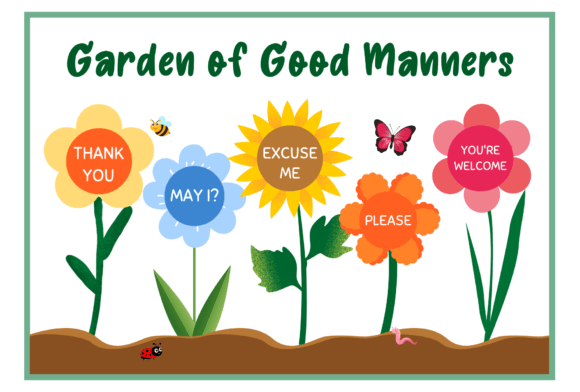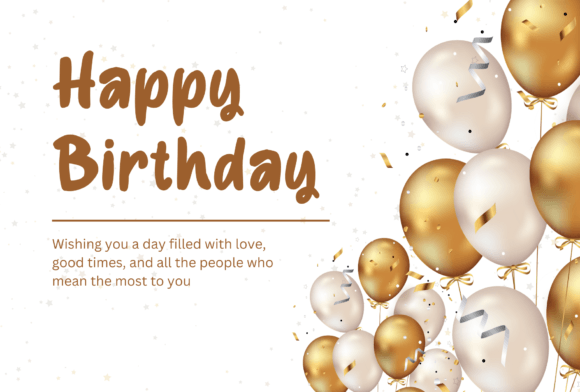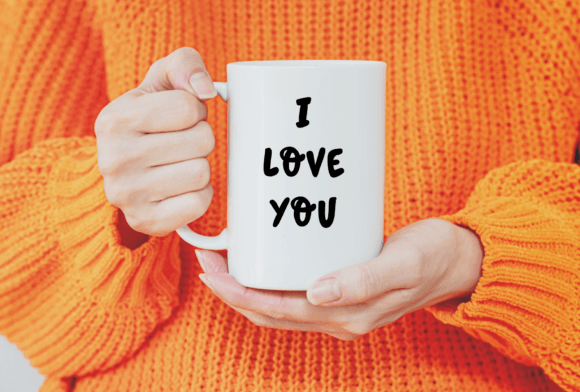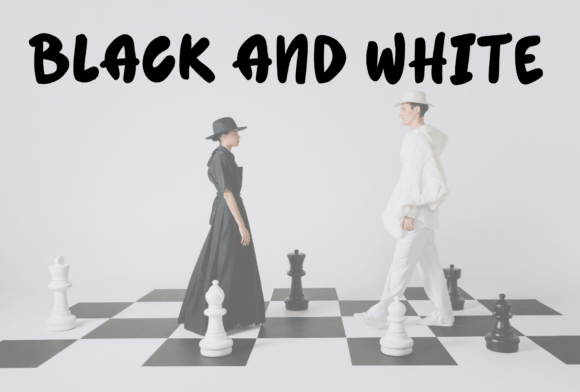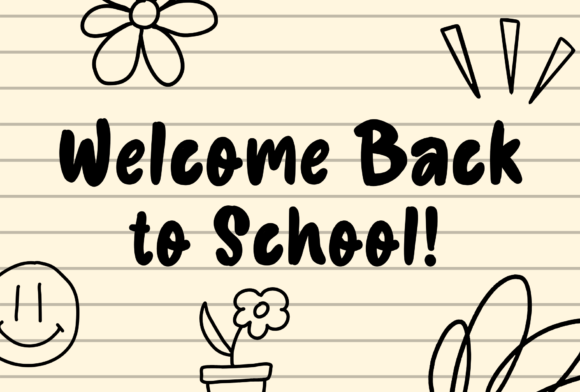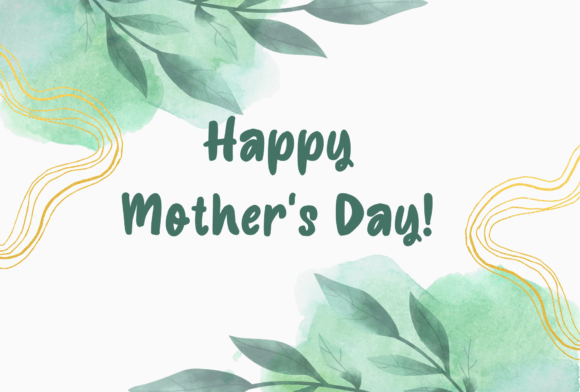
Unleashing the Whimsy: The Magic of Cartoon Font
Who hasn’t found themselves scribbling out a quick doodle in the margins of a notebook, or jotting down a playful message on a sticky note? It’s in these moments of creative abandon that we tap into our inner child, unleashing a world of imagination and whimsy. And it’s exactly this carefree spirit that Cartoon Font embodies – a charmingly quirky handwritten font designed to add a touch of personality to your creations.
Perfect for designers looking to infuse their projects with a dash of fun and sentimentality, Cartoon Font is a versatile tool that can be used to craft birthday cards, create custom planners, or even adorn cozy t-shirts. Its unique charm and playful personality make it an invaluable asset for any creative looking to add a little extra something special to their work.
- Unique Characteristics: Cartoon Font features rounded edges, exaggerated lines, and playful letterforms, giving it a whimsical and humorous feel.
Cartoon Font Review
I recently worked with the Cartoon Font, and I must say it’s a fun and playful addition to any design project. ✨ The font’s vibrant colors and exaggerated shapes make it perfect for children’s books, cartoons, and even advertisements. It’s also surprisingly versatile, working well in both digital and print formats.
However, there are a few limitations to keep in mind: ⚠️ the font’s boldness can be overwhelming at times, and it may not be suitable for more formal or professional projects. Additionally, some of the characters may not be fully compatible with certain operating systems or devices.
- ✨ Vibrant colors and exaggerated shapes make it perfect for playful projects
- ✨ Surprisingly versatile, working well in both digital and print formats
- ⚠️ Font’s boldness can be overwhelming at times
- ⚠️ May not be suitable for formal or professional projects
- ⚠️ Some characters may not be fully compatible with certain operating systems or devices
Overall, I think the Cartoon Font is a great choice for designers who want to add a touch of whimsy and fun to their projects. While it may have some limitations, it’s a unique and engaging font that can help bring a project to life. With a little caution and planning, it can be a valuable addition to any design toolbox.
Tips for Getting the Most Out of Cartoon Font
Cartoon Font is perfect for creating playful, eye-catching designs. Here are some tips to get the most out of it:
- Use it for headings and titles to add a touch of whimsy.
- Pair it with bold colors and geometric shapes for a fun, modern look.
Cartoon Font is perfect for:
- Children’s book covers and illustrations.
- Advertising and marketing materials.
- Party invitations and decorations. Alternatives to Cartoon Font
- Choose a bold and colorful background to contrast with the font.
- Use Cartoon Font for menu item labels and descriptions.
- Combine with simple illustrations or graphics to enhance the playful feel.
What are some common technical issues with Cartoon Font?
Cartoon font can be prone to issues with font rendering and legibility, particularly at small font sizes. This is because its irregular shapes and loose connections between letters can make it difficult for the font to render correctly on different devices and screens. Additionally, cartoon font may not be optimized for certain font sizes or line heights, which can affect its overall appearance and readability.